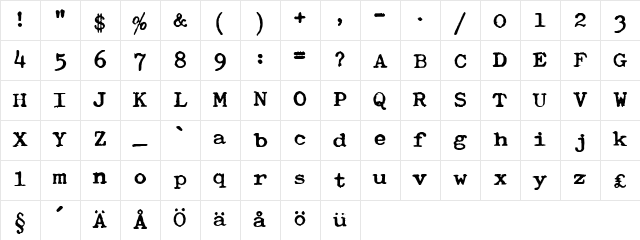
Typewriter Royal 200 Regular
Foundry: MR.FISK FONTS
Designer: MR.FISK
Design Context for Typewriter Royal 200
Typewriter Royal 200 uses fixed-width spacing throughout, giving it the structured, systematic character associated with coding environments and technical documentation.
Pro Tip: Use Typewriter Royal 200 with slightly increased line-height for extended reading - fixed-width spacing can feel dense in longer passages without extra breathing room.